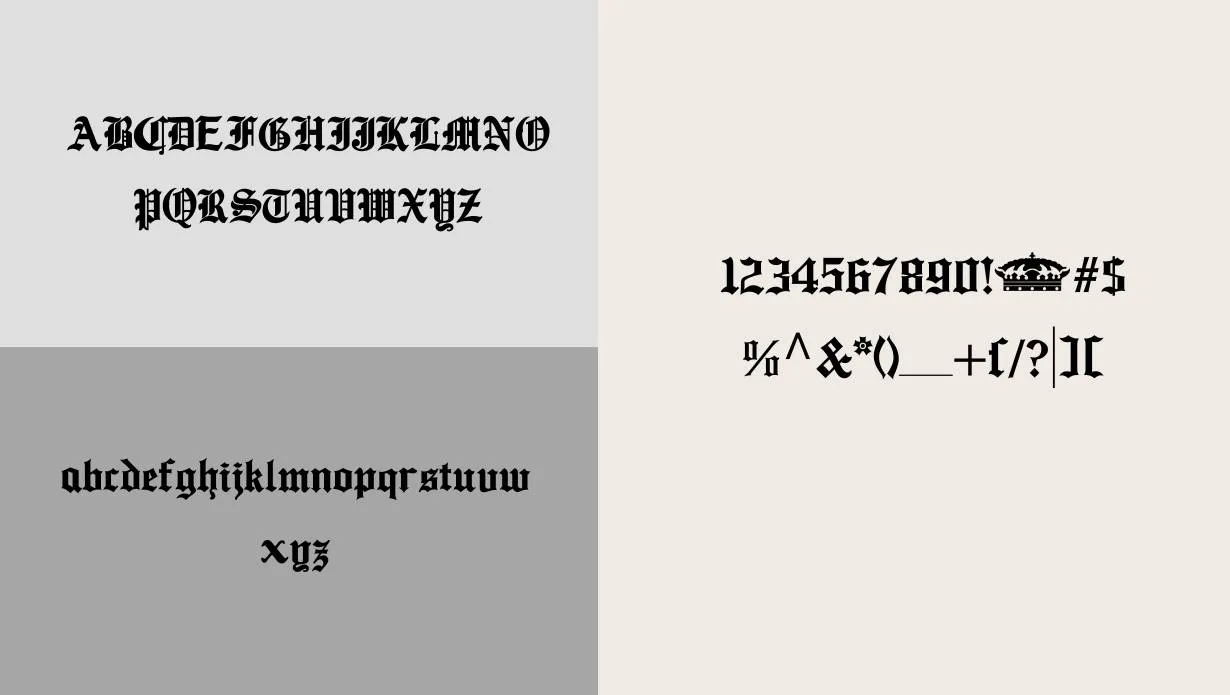
The Ancient Font takes your designs on a journey through history, adding a touch of historical charm. Ideal for projects embracing a vintage aesthetic or ancient themes, its characters bring a sense of antiquity.
| Name | Ancient Font |
| Designer | Ashten Alexander |